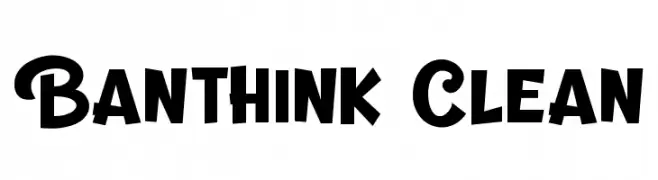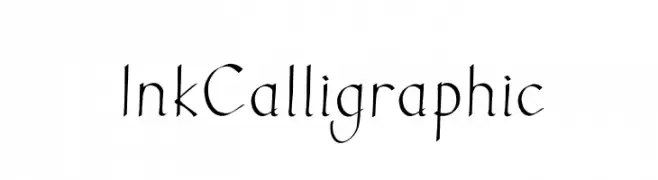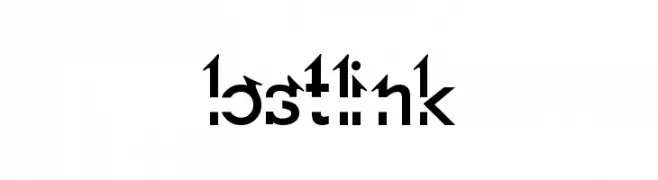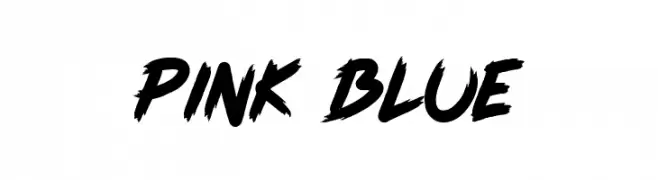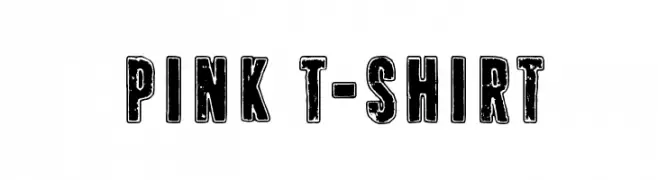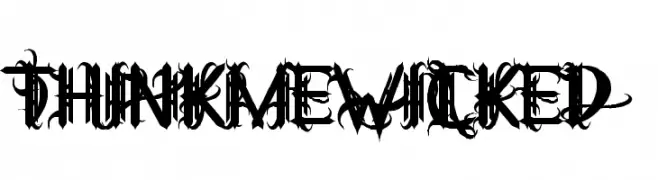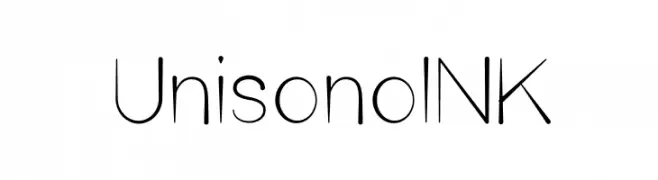
A playful, bold, and rounded decorative font with a hand-drawn feel.
A playful, bubble-like font with rounded, bold characters.
A playful, rounded font with a hand-drawn, whimsical style.
A bold, distressed font with a hand-painted, rugged appearance.
A bold, dripping font with a chaotic and intense style.
A bold, graffiti-inspired font with sharp, angular lines and dynamic energy.
A geometric, abstract font with bold, block-like shapes and a futuristic aesthetic.
A bold, italicized font with a dynamic, handwritten style.
A bold, mechanical-themed font with a playful, industrial design.
A playful, bold font with rounded, slightly irregular letters.
A playful and artistic handwritten font with fluid strokes and dynamic style.
A playful, bold font with a warped, dynamic style.
A playful, handwritten font with a bold and lively style.
A bold, hand-painted style font with a raw, energetic appearance.
A playful, cursive script font with elegant loops and swirls.
A playful, hand-drawn font with a whimsical and friendly style.
A playful, bold font with a bubbly and whimsical design.
A bold, decorative font with intricate brain-like patterns.
A dynamic and elegant script font with flowing letterforms and bold uppercase characters.
A bold, geometric font with a modern and futuristic design.
A flowing, elegant script font with dynamic stroke contrast and ornate uppercase letters.
A geometric, modern outline font with sharp angles and clean lines.
A playful and elegant script font with hand-drawn, looping strokes.
An elegant, cursive script font with flowing, artistic letterforms.
A whimsical, artistic font with flowing, cursive-like letterforms and playful embellishments.
An elegant, flowing script font with a dynamic italic slant and intricate design.
A playful, handwritten font with fluid strokes and a whimsical style.
A playful, bold font with decorative cutouts and rounded characters.
A lively and expressive handwritten font with fluid, dynamic strokes.
A bold, expressive script font with flowing cursive letterforms.
A graceful and playful script font with elegant curves and artistic flair.
A bold, modern font with geometric and organic elements, featuring high contrast and wide spacing.
A playful, bold font with a hand-drawn, informal style.
An elegant, fluid script font with interconnected letters and a natural handwriting style.
A playful and whimsical font with rounded, bold letterforms.